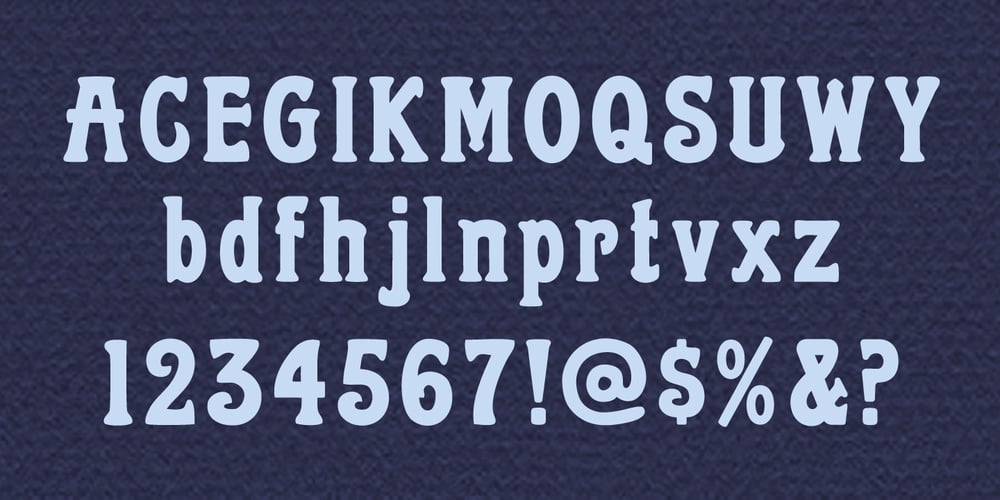
MPI Atlas Font Family was designed by published by mpressInteractive. MPI Atlas contains 1 styles and family package options. Atlas is an affable display font (think friendly neighborhood pub) originally created by Day & Collins of London. Atlas has thick strokes and triangular, rounded serifs. Some characters feature curly, decorative elements.